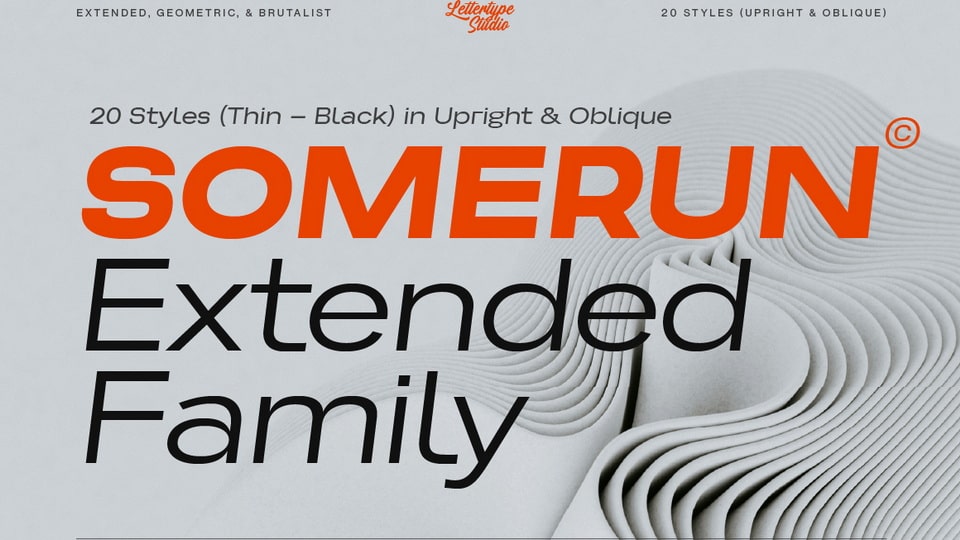
Download Somerun font, a modern typography with our curated selection of sans serif extended fonts embody grotesque, geometric, and brutalist styles.
Designer: Lettertype Studio